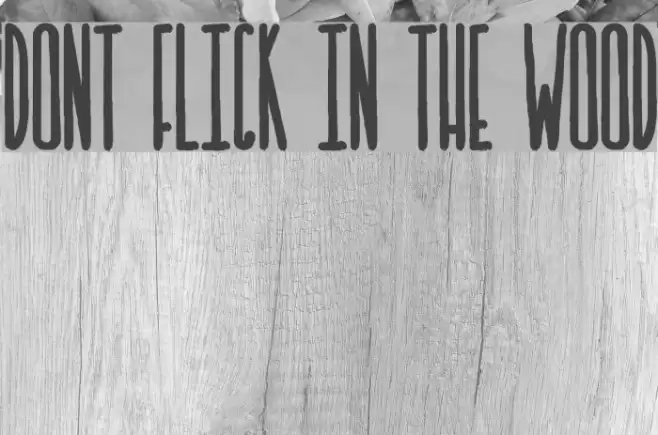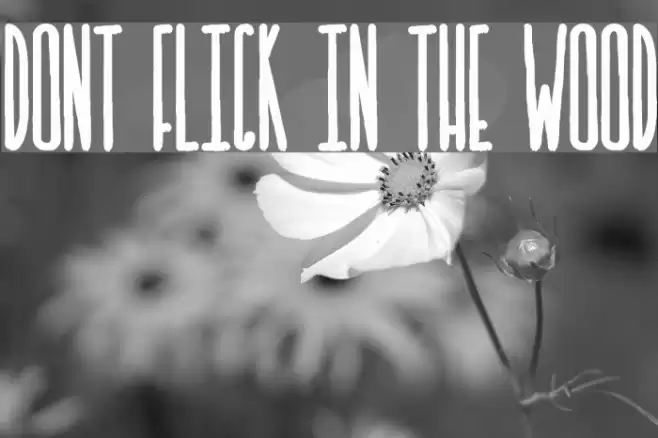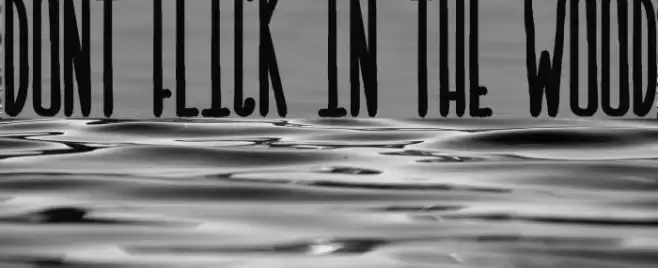
DONT FLICK IN THE WOOD Font
DONT FLICK IN THE WOOD Description
This font features a highly condensed and elongated style, with tall, narrow characters that create a striking and dramatic appearance. The strokes are uneven and have a hand-drawn quality, giving it a rustic and organic feel. The uppercase and lowercase letters maintain a consistent height, contributing to its unique aesthetic. The numbers and special characters follow the same design principles, ensuring uniformity across all glyphs. This font's distinctive style makes it suitable for creative and artistic projects where a bold statement is desired.
A condensed, hand-drawn font with tall, narrow characters and a rustic feel from Uncategorized fonts.
- Proposed Projects: Ideal for posters, album covers, artistic projects, and branding that requires a bold, unique look.
- Character Spacing: Tight